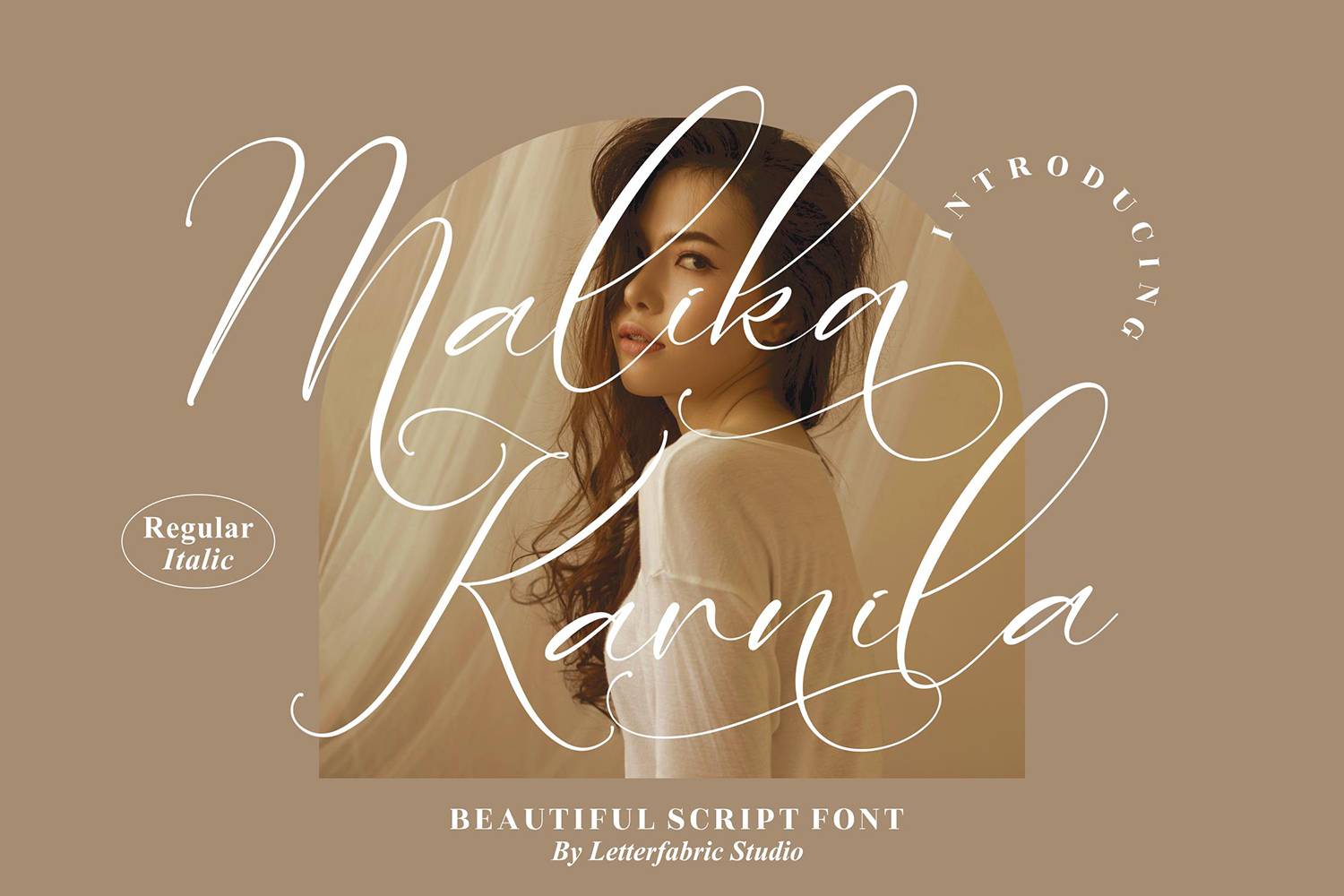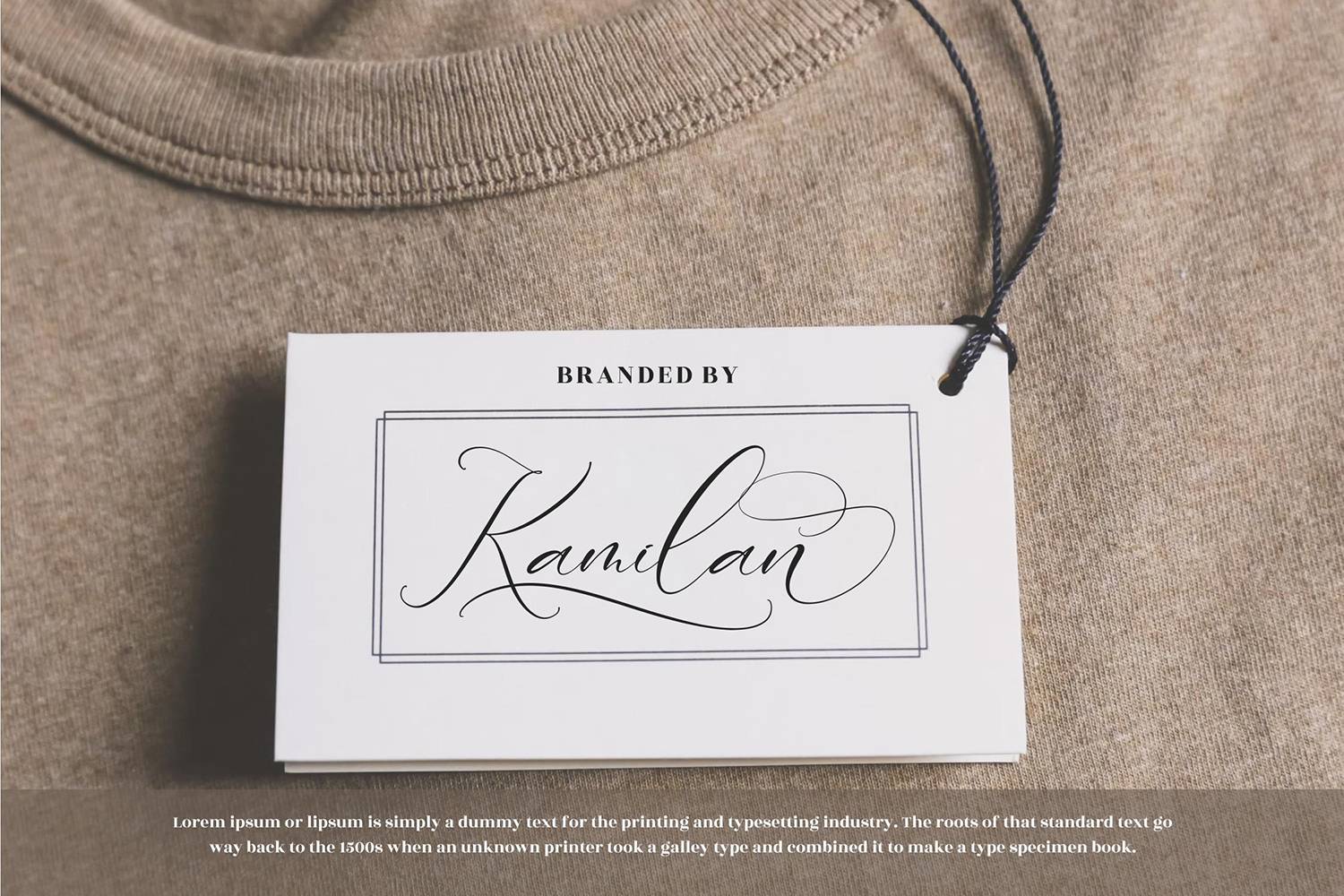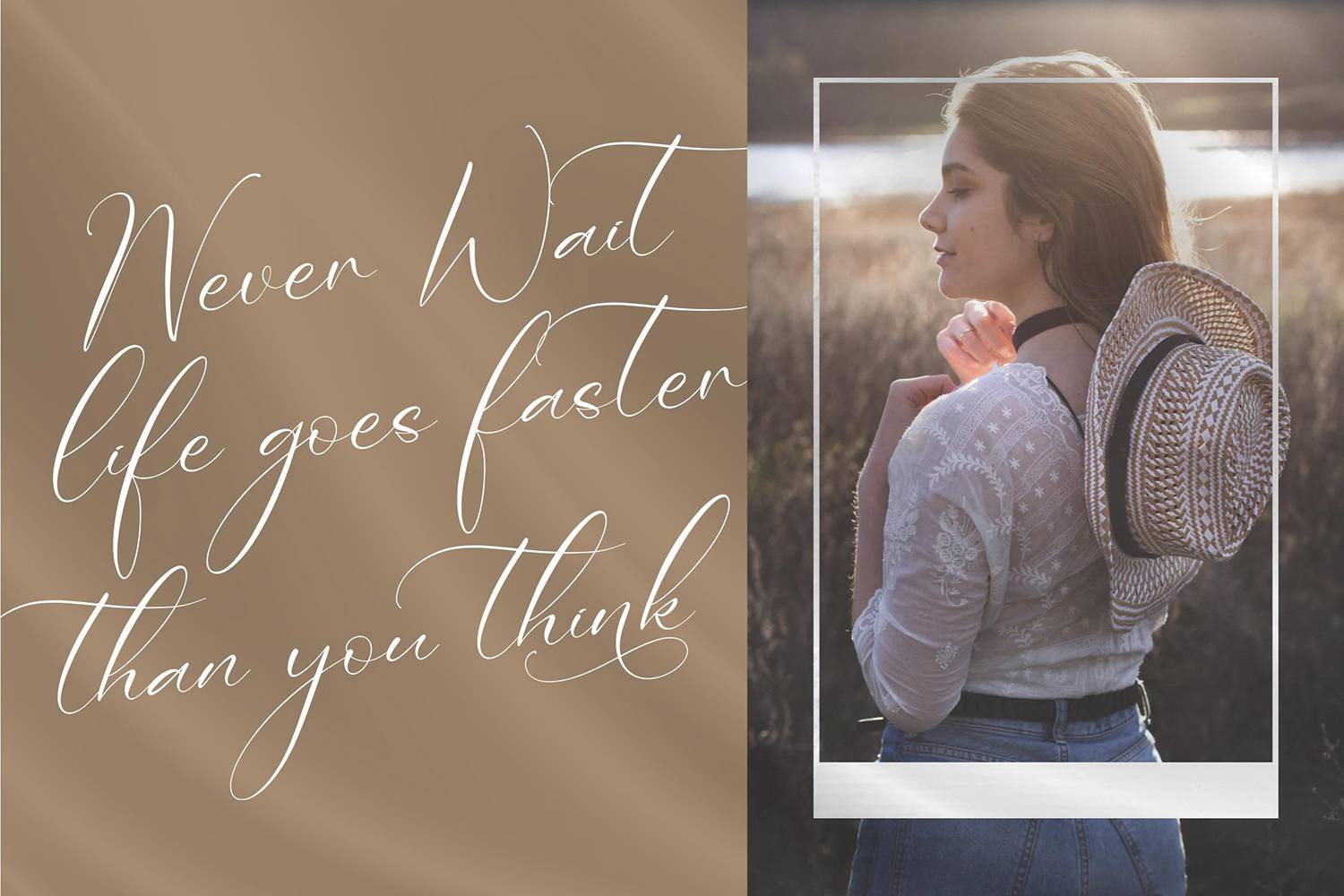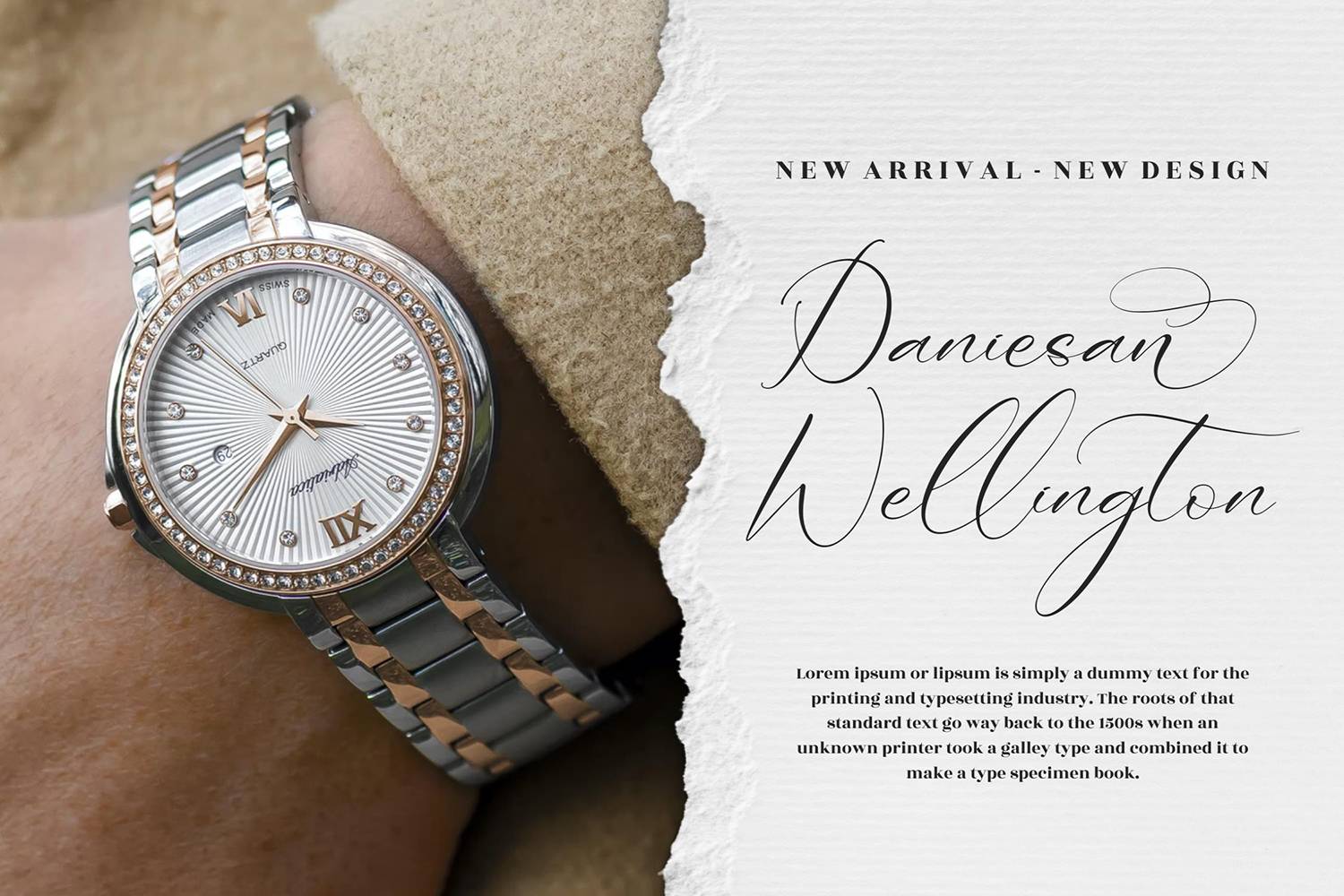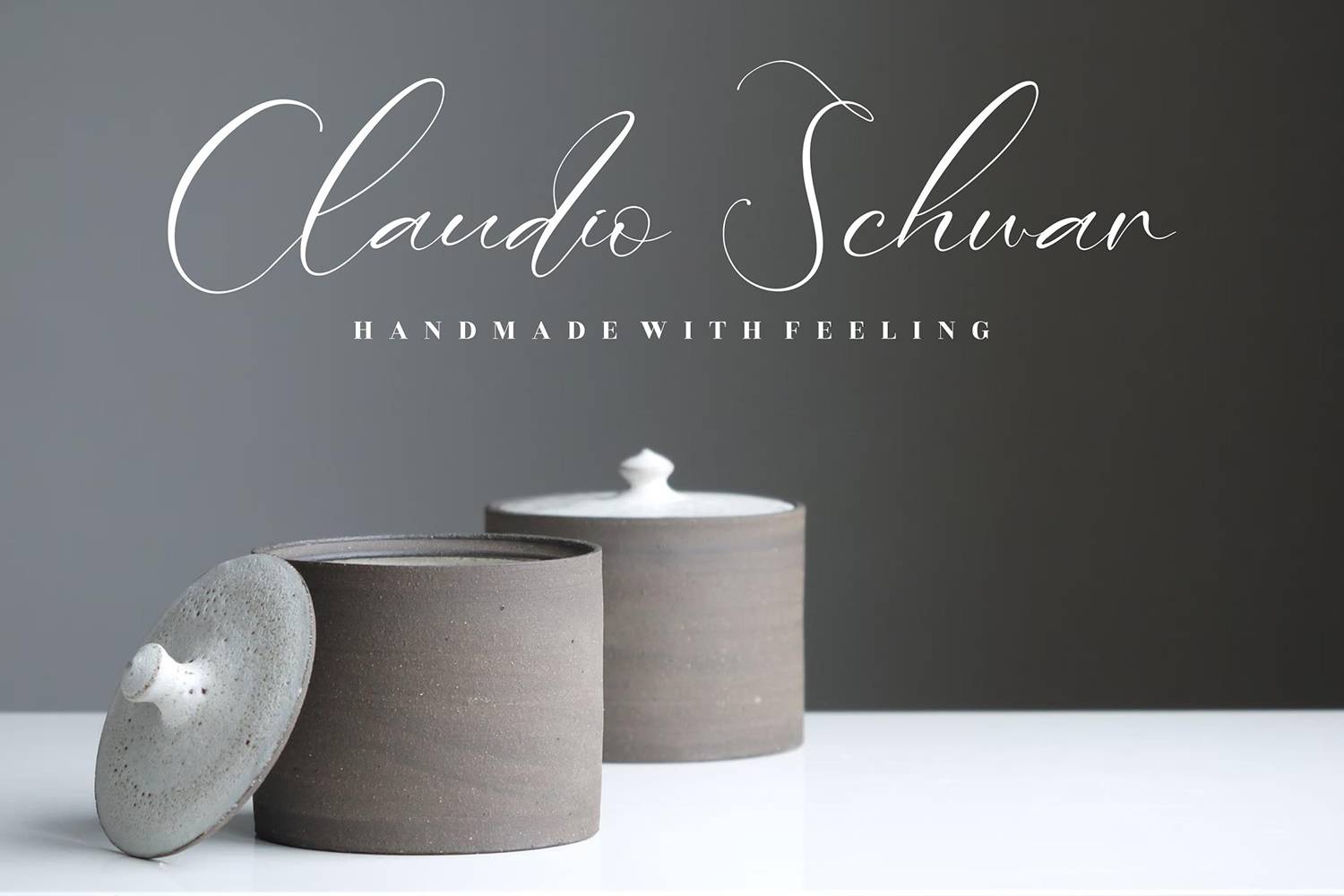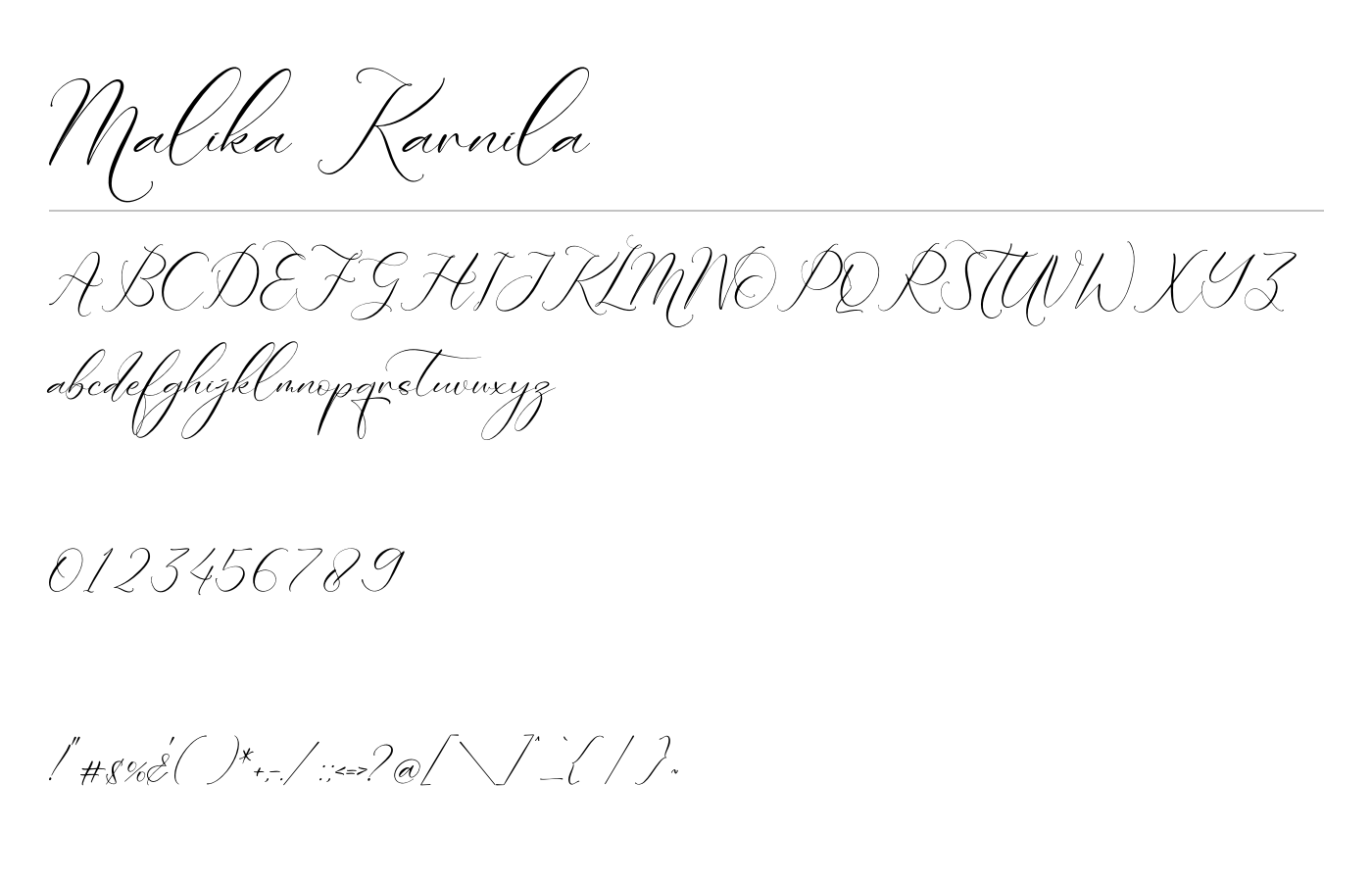
Malika Karnila is a delicate and elegant script font characterized by its thin, flowing strokes and graceful, calligraphic style. With its high contrast and refined swashes, it evokes a sophisticated and romantic feel, making it perfect for invitations, branding, and any design that seeks a stylish, feminine touch. Its airy and decorative letterforms work best in headlines or logos where an elegant, handcrafted appearance is desired.
Malika Karnila Font
About Malika Karnila Font
| Font family | Malika Karnila Font |